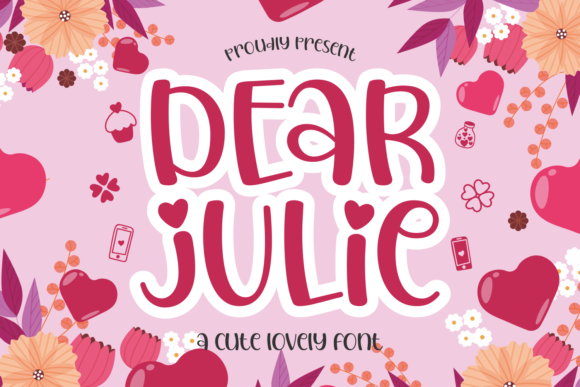
Journey into the realm of enchantment with Dear Julie Font, a display font that exudes charm and elegance. Prepare to be captivated by its round-shaped characters, adorned with delicate heart details that ignite a spark of joy. Let your creativity flourish as you explore the endless possibilities of this extraordinary typeface.
With Dear Julie Font, you hold the key to unlocking a world of captivating designs. Picture the allure of baby cloth shops, where Dear Julie's playful spirit dances across onesies, bibs, and tiny garments. Envision the impact of your headlines, infused with Dear Julie's charm, commanding attention and leaving an indelible mark on your audience.
Imagine the allure of magazines and posters adorned with Dear Julie's graceful presence, inviting readers to delve into worlds of wonder. Unleash your inner child as you craft children-themed designs that burst with color and imagination, thanks to Dear Julie's playful personality.
Express your heartfelt emotions with Dear Julie Font, the perfect companion for heartfelt quotes, wedding invitations, and birthday cards. Its intricate details add a touch of whimsy and warmth, transforming ordinary words into cherished keepsakes.
Step into a realm of beauty and harmony with Dear Julie Font. Create flower decorations that radiate joy and inspire tranquility, infusing your surroundings with a sense of serenity.
Dear Julie Font is more than just a font; it's a gateway to a world of creativity and self-expression. It's a font that speaks to the heart, evoking emotions and creating connections. Let Dear Julie Font be your creative muse, guiding you towards designs that capture the essence of enchantment and leave an unforgettable impression.
And as an exclusive bonus, Dear Julie Font comes with a treasure trove of cute extra elements. Add a touch of sweetness to your designs with the adorable cookie, heart jar, heart with wings, and shamrocks. These delightful embellishments will elevate your creations, adding a layer of charm and uniqueness.